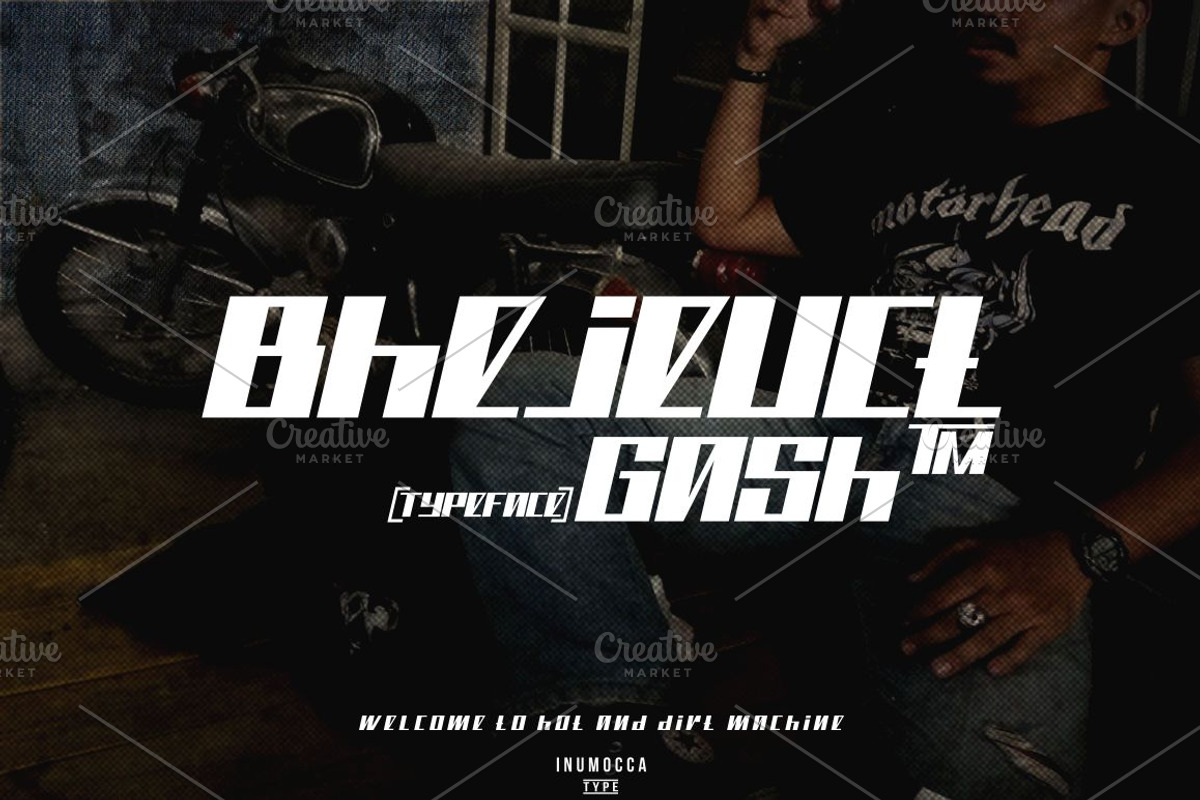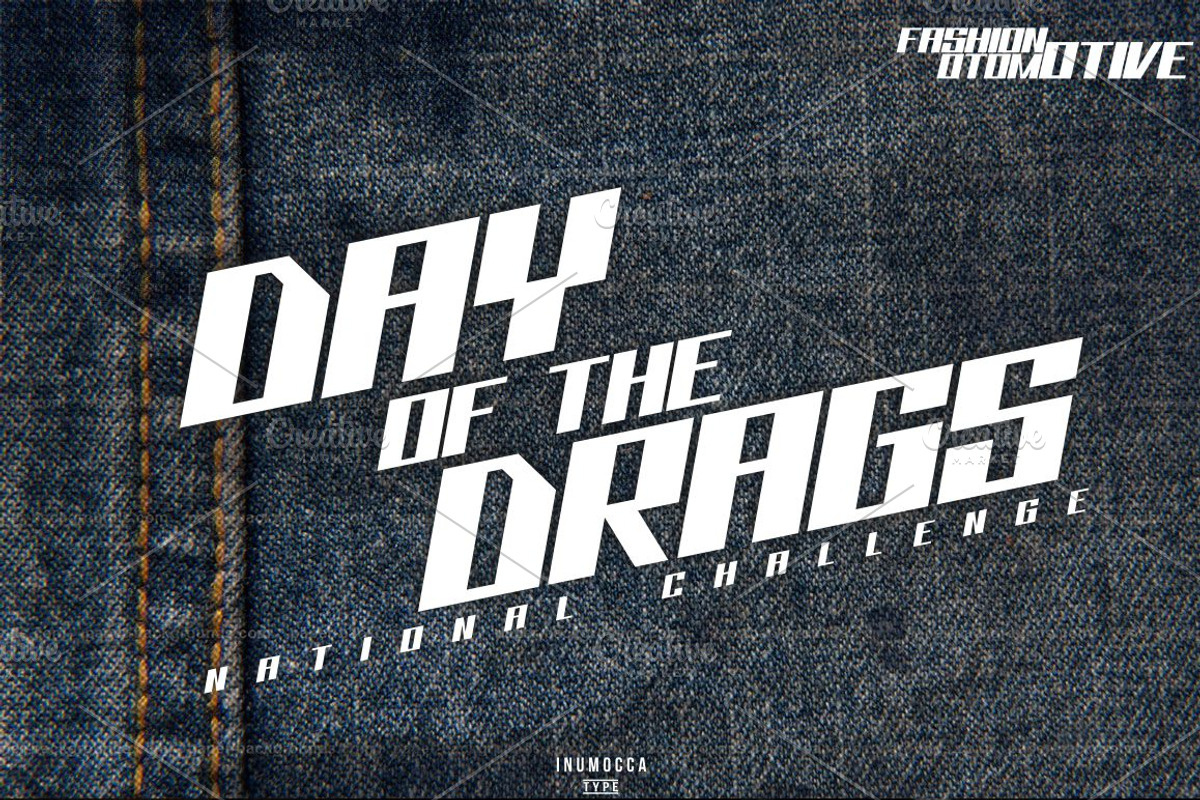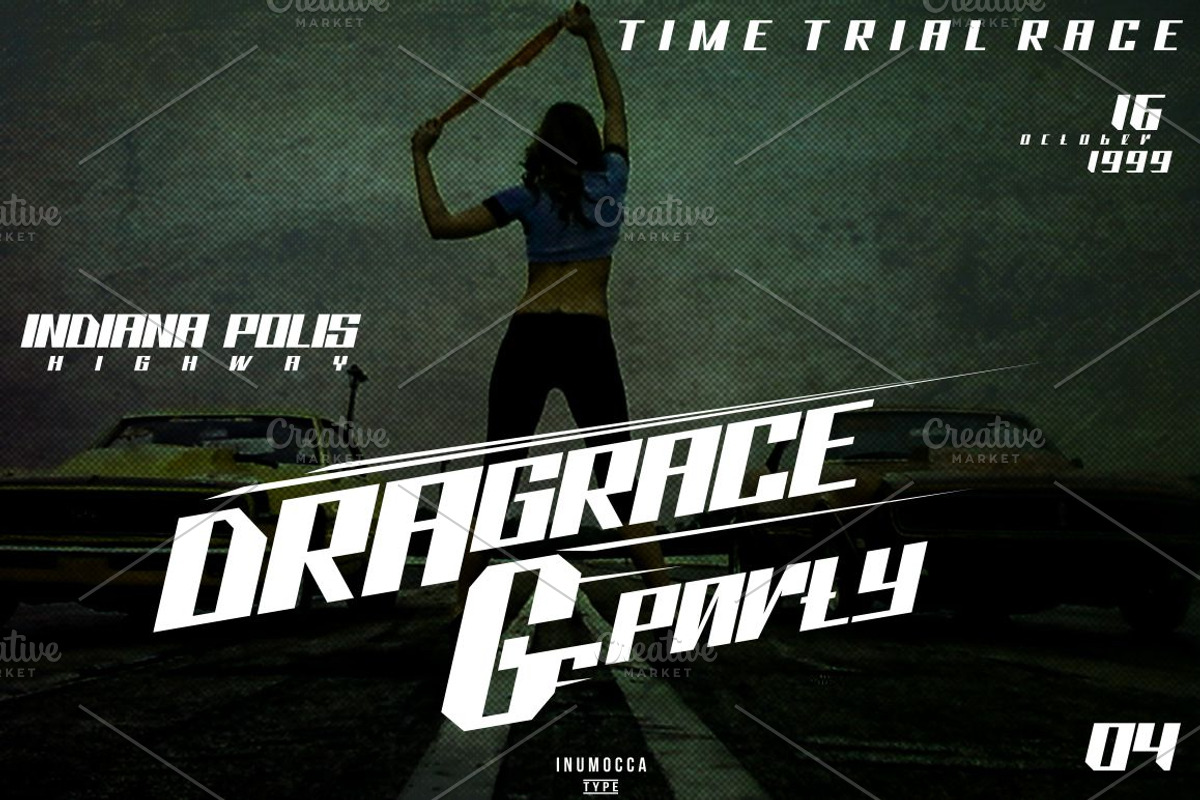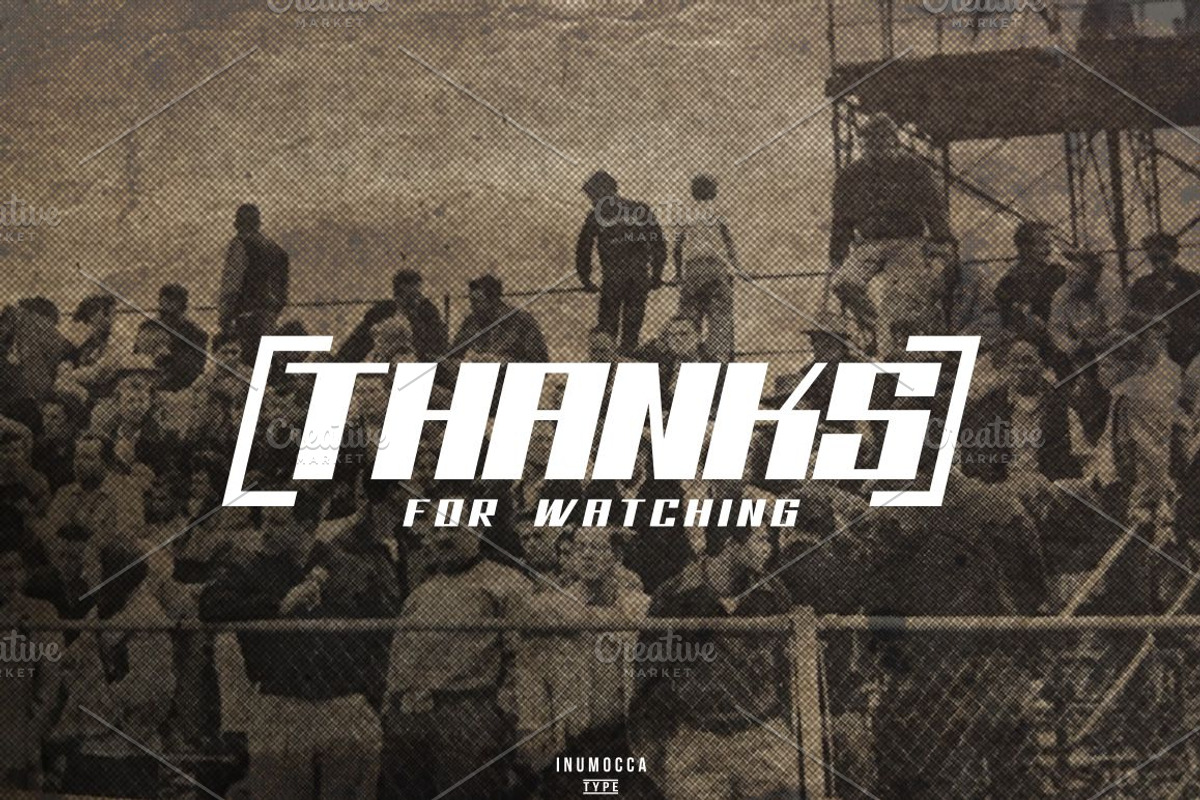
Bhejeuct gash typeface
Bhejeuct gash typeface by inumoccatype is a font selected for branding, posters, packaging, typography.
Why Bhejeuct gash typeface is worth a look
Bhejeuct gash typeface by inumoccatype fits naturally into Branding, posters, packaging, typography.